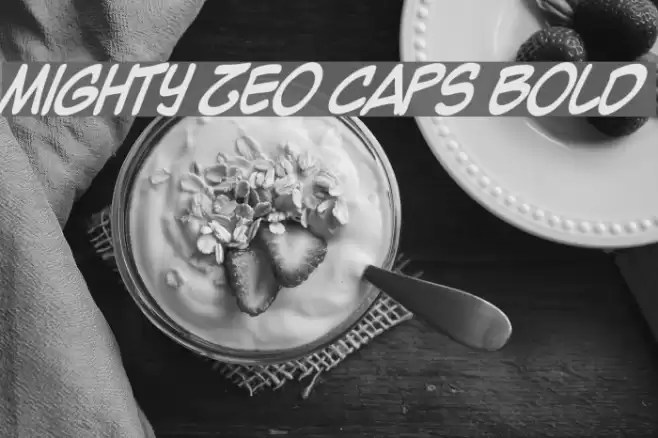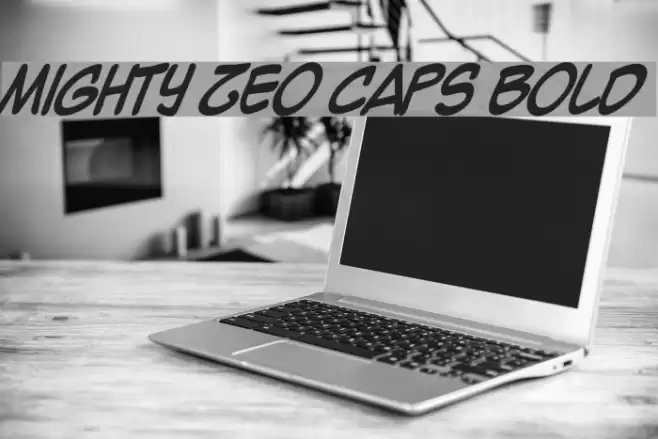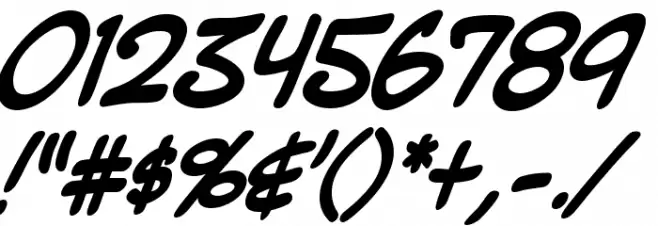
Mighty Zeo Caps Bold Font
Mighty Zeo Caps Bold Description
This bold and dynamic font features a striking, slanted design that exudes energy and movement. The characters are crafted with a smooth, flowing style that gives a sense of speed and agility. The uppercase letters are prominent and commanding, while the lowercase letters maintain a consistent style that complements the overall aesthetic. Numbers and special characters are equally bold and expressive, making them stand out in any context. The font's design is ideal for projects that require a strong, impactful presence.
A bold, slanted font with a dynamic and energetic style from Uncategorized fonts.
- Proposed Projects: Ideal for sports branding, dynamic posters, action-themed designs, and eye-catching headlines.